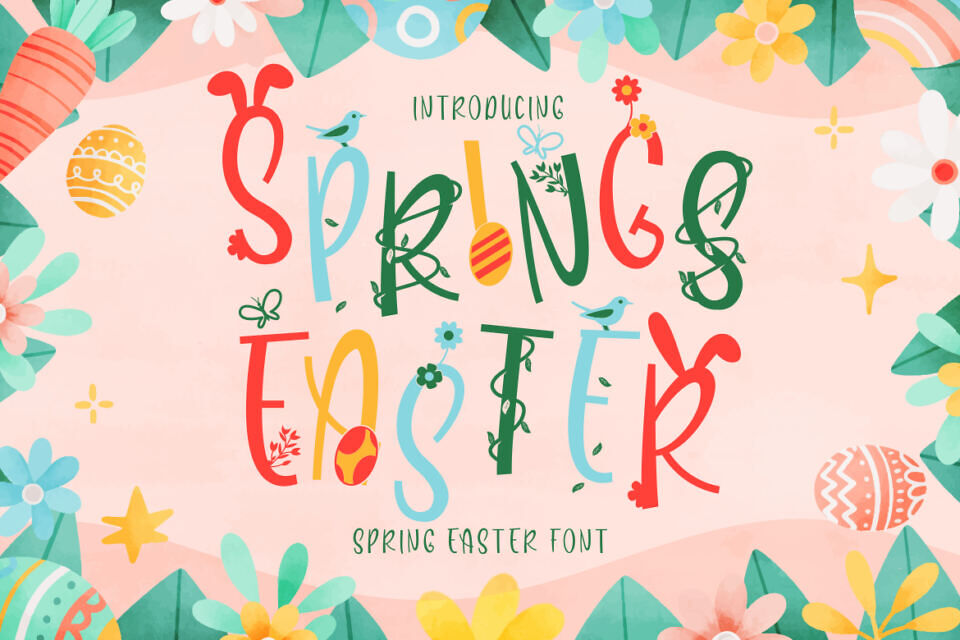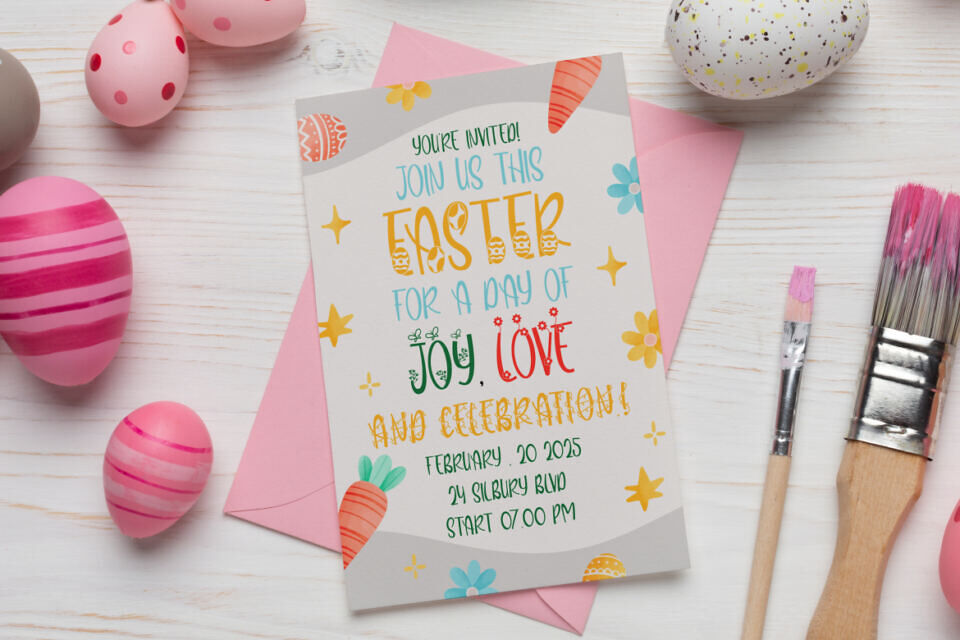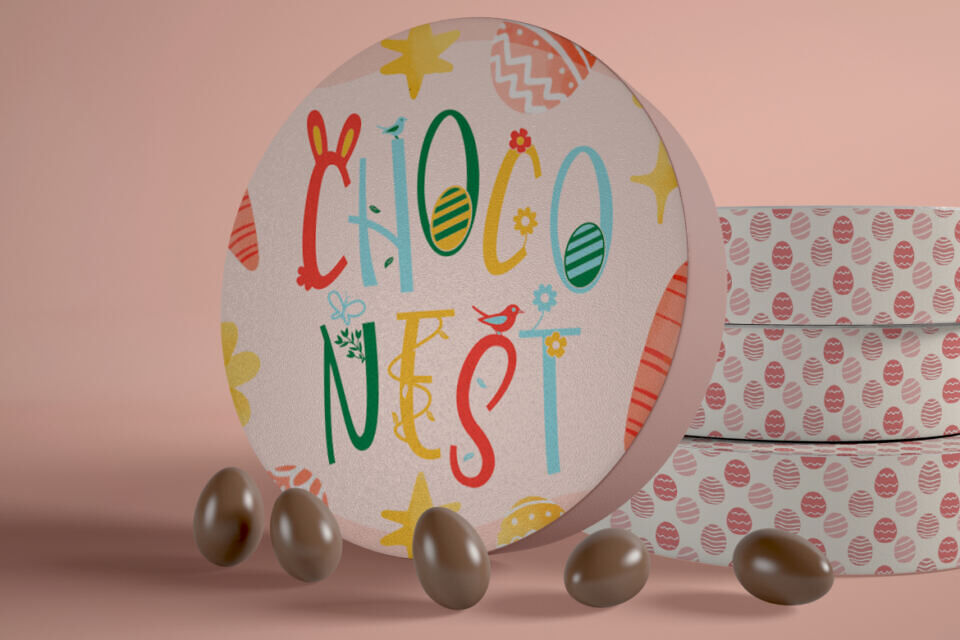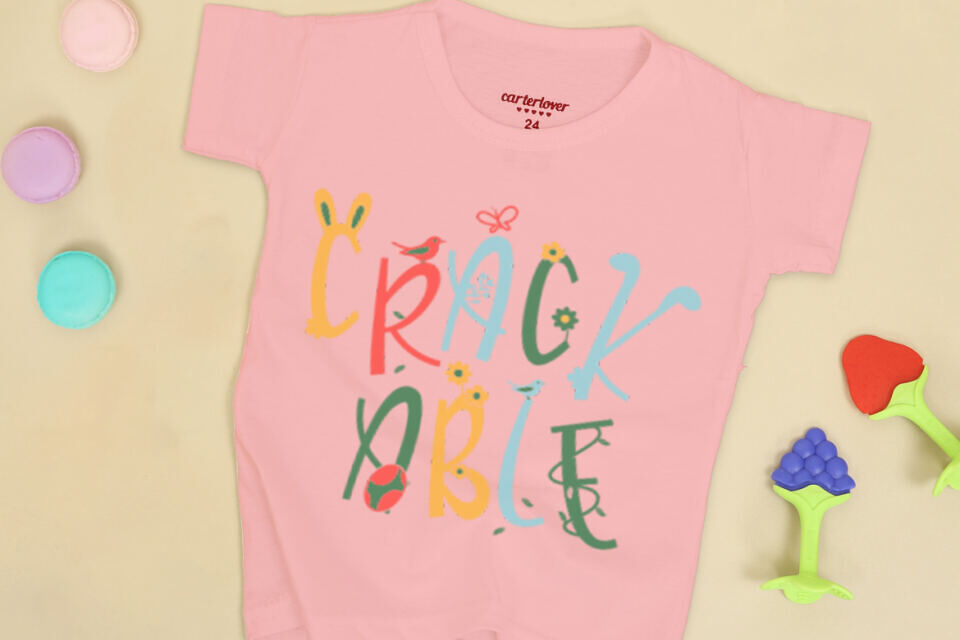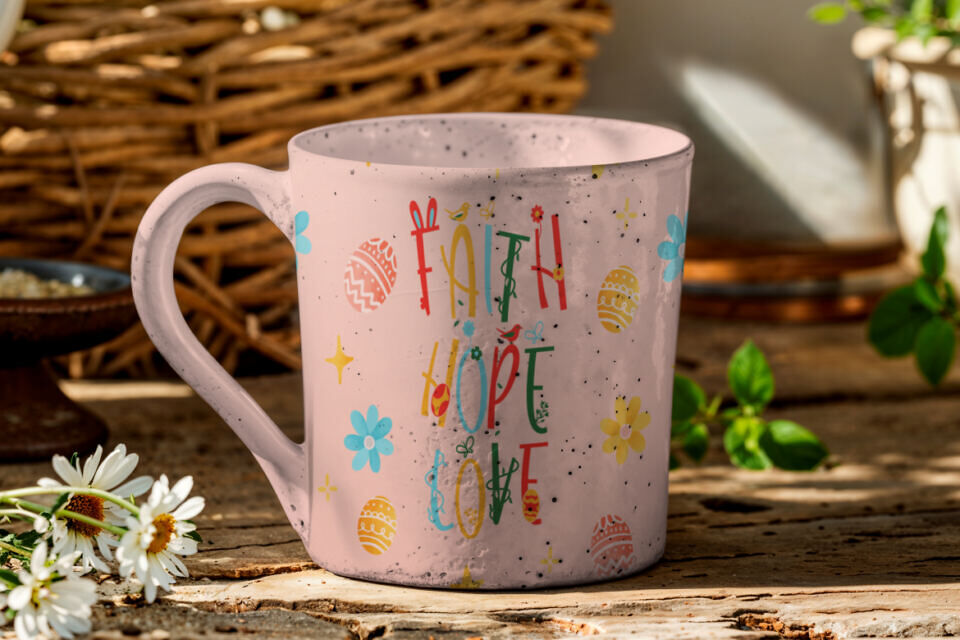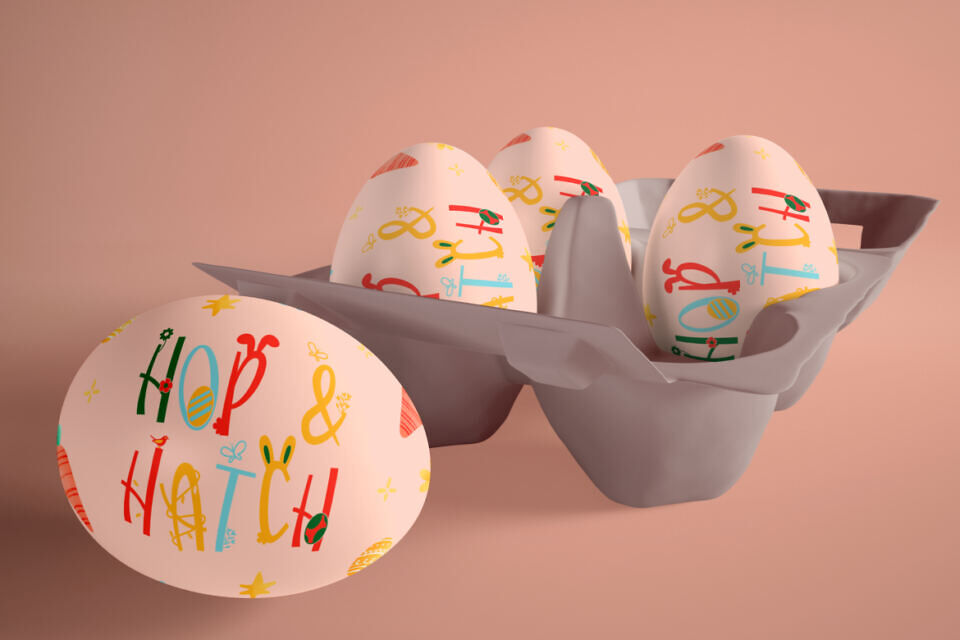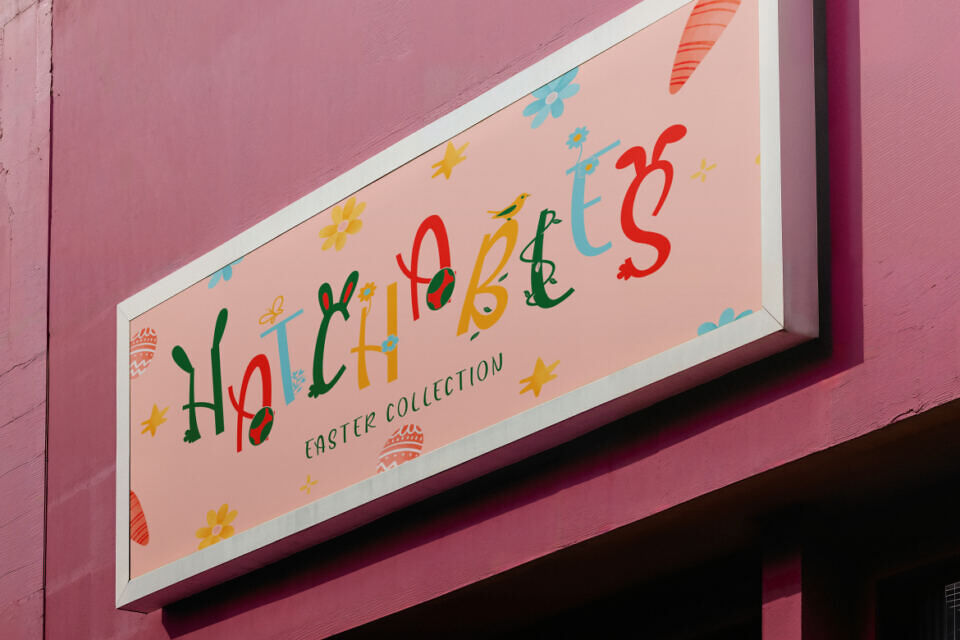
Spring Easter Font
Springs Easter is a joyful display font designed to capture the lively spirit of spring and the festive charm of Easter celebrations. Each letter is adorned with playful decorative elements like floral patterns, bunny ears, and egg-inspired shapes, making it perfect for designs that need a burst of seasonal personality.
The rounded, friendly strokes give it an inviting feel, while the unique thematic details ensure your typography stands out. Its clear readability allows for versatile usage, from bold headlines to smaller decorative text.